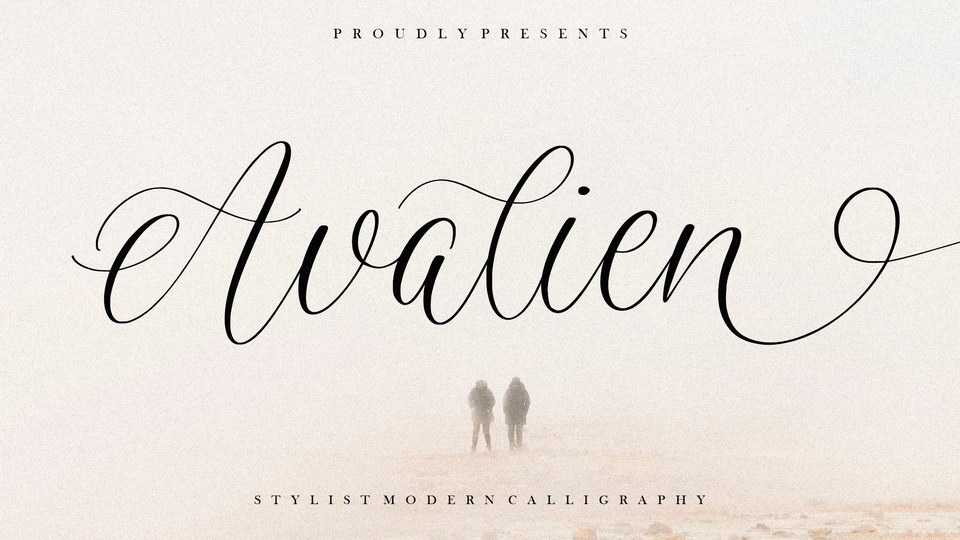
Download Avalien font, a stylish modern calligraphy typeface with an elegant and airy flow. Avalien is perfect for branding, magazine, social media, wedding, or just used to express words above the background.
Designer: Balpirick Studio